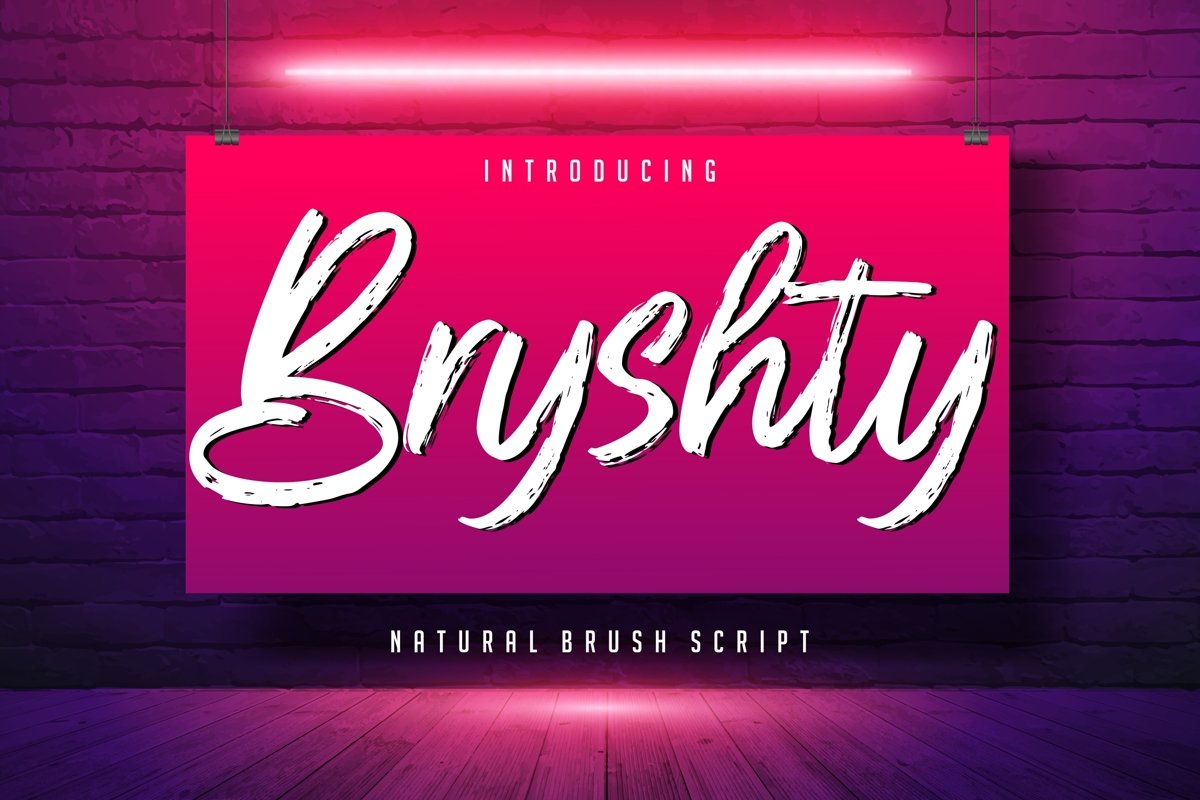
Bryshty Natural Brush Script
Bryshty is natural brush font with smooth movement.
Bryshty is perfect for branding projects, logo, wedding designs, social media posts, advertisements, product packaging, product designs, label, photography, watermark, invitation, stationery and any projects that need handwriting taste.What's Included :